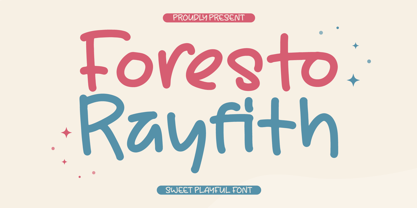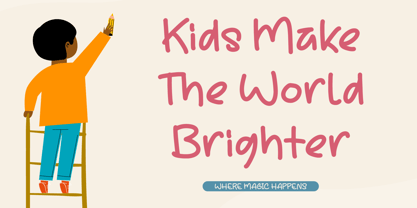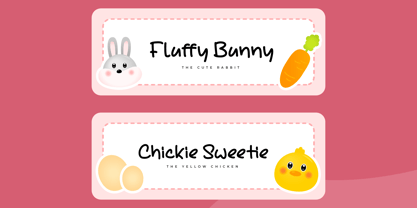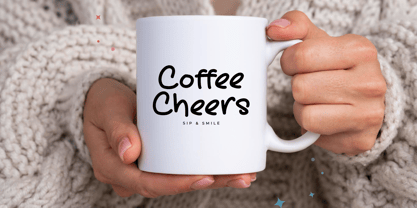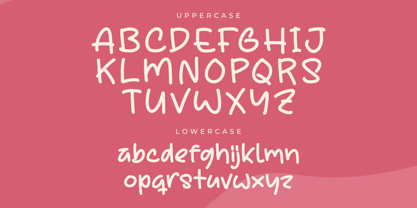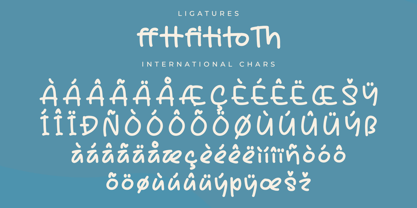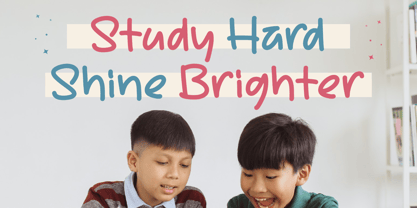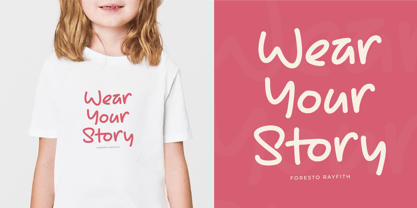
Foresto Rayfith
by Letterena Studios
The Foresto Rayfith Font Family was designed by Heru Utama Putra and published by Letterena Studios. Foresto Rayfith contains 2 styles and family package options. More about this family
Foresto Rayfith, a whimsical handwritten font, dances across the page with playful elegance. Its organic strokes and irregular letterforms capture the spontaneity of nature. With a touch of enchantment, this font adds a delightful and personal charm to your creative endeavors.